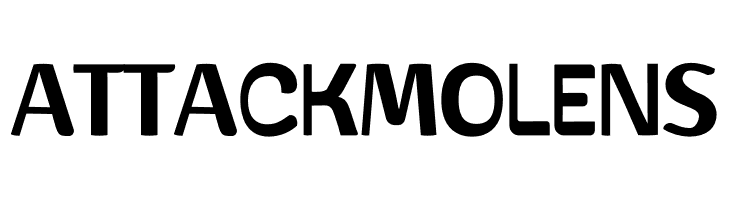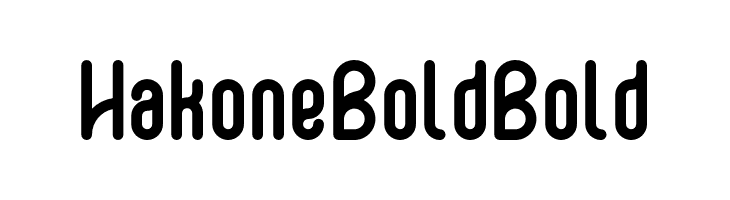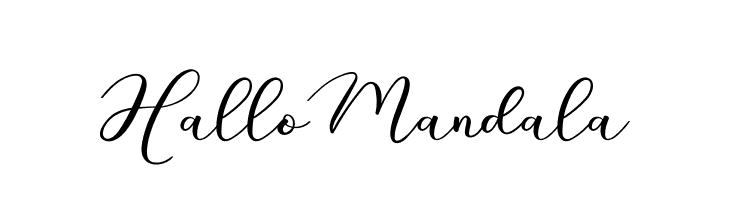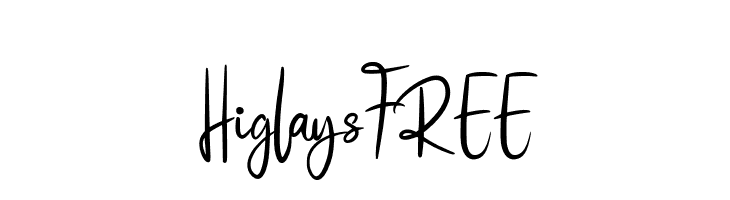
A bold, rounded font with a modern and playful style.
A thin, italic slab serif font with a modern and elegant style.
A bold, italicized font with a futuristic, angular design.
A modern, italic font with clean lines and a dynamic slant.
A bold, playful script font with a handwritten feel.
A playful, hand-drawn font with double-line outlines and a whimsical style.
A bold, spiked, italic font with a dynamic and energetic style.
A modern serif font with high contrast and sharp, angular serifs.
A futuristic, italicized font with sleek, angular letters.
An elegant and flowing script font with graceful curves and loops.